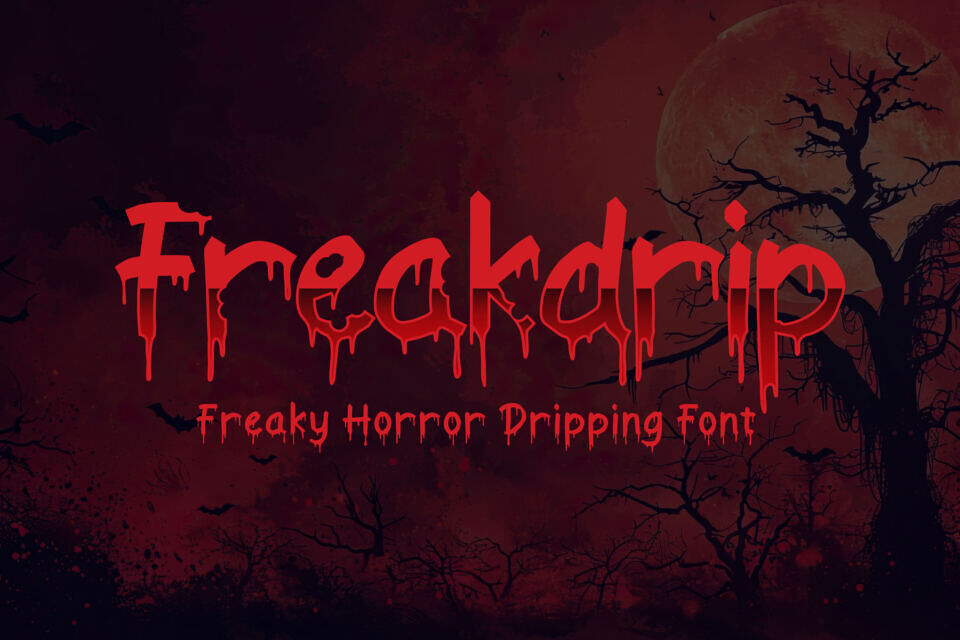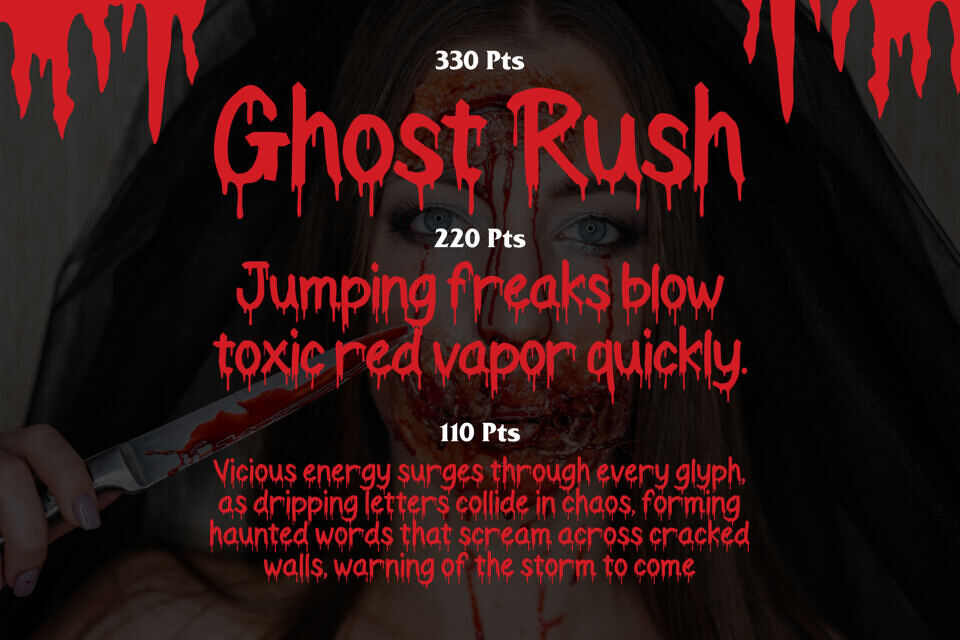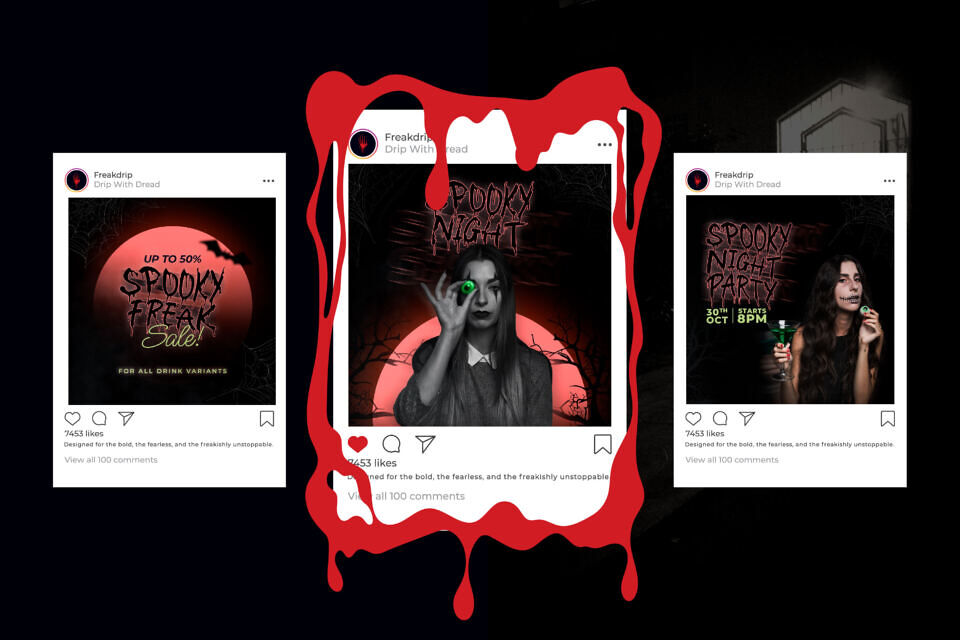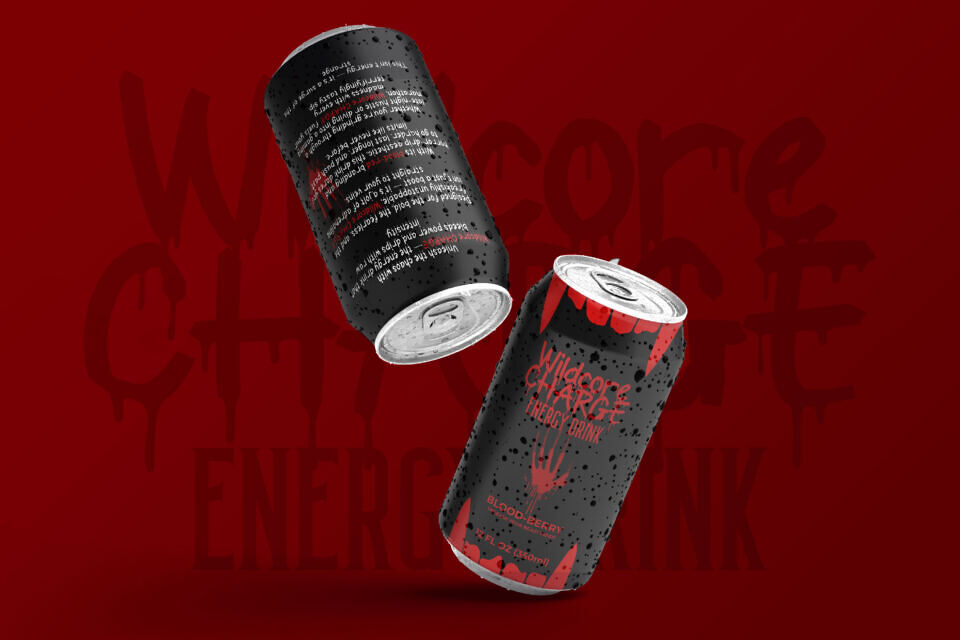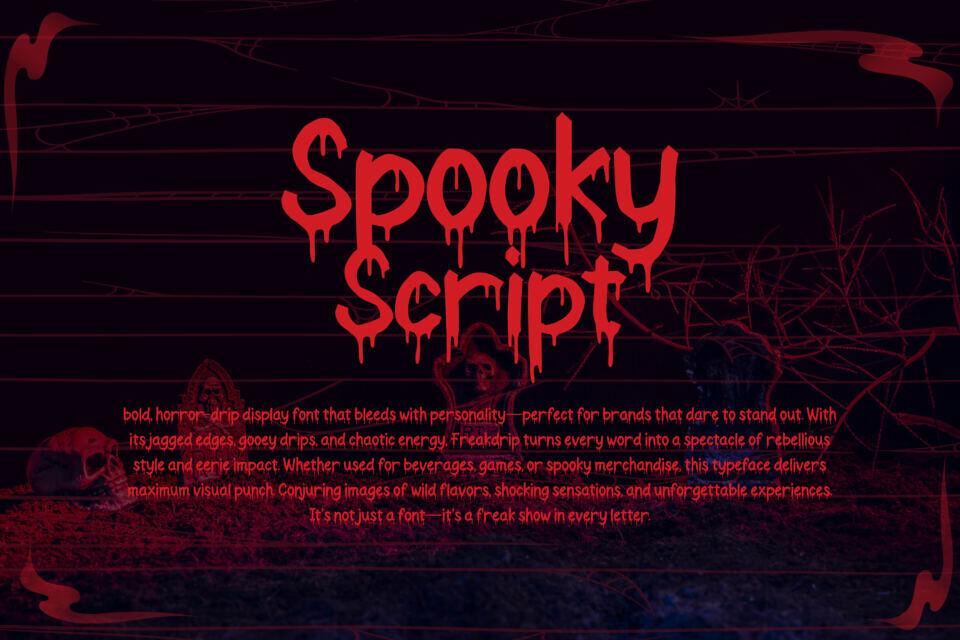
Freakdrip is a freaky horror dripping font that oozes with personality. Its bold, liquid-like letterforms create a creepy, edgy, and thrilling vibe—perfect for designs that need to look spooky and unforgettable. The dripping effect adds a touch of grunge and gore, making it a must-have for Halloween projects, horror branding, and viral meme designs.
- Style & Vibe: Freaky, dripping, horror, and edgy
- Letterform Structure: Bold display type with liquid drip details
- Intended Market: Horror event organizers, Halloween product designers, meme creators, and edgy streetwear brands
- Best Uses: Halloween posters, spooky invitations, horror movie titles, scary social media graphics, creepy t-shirt prints